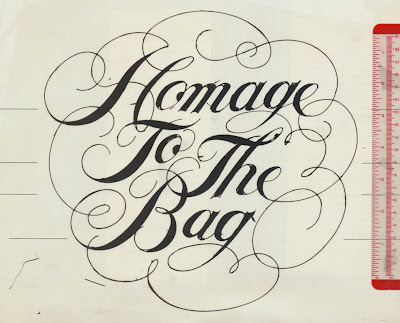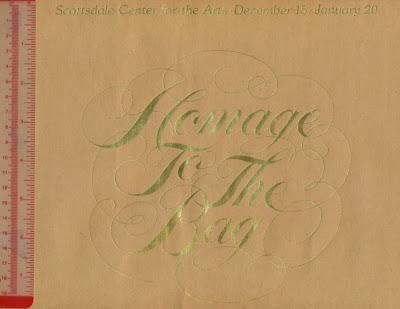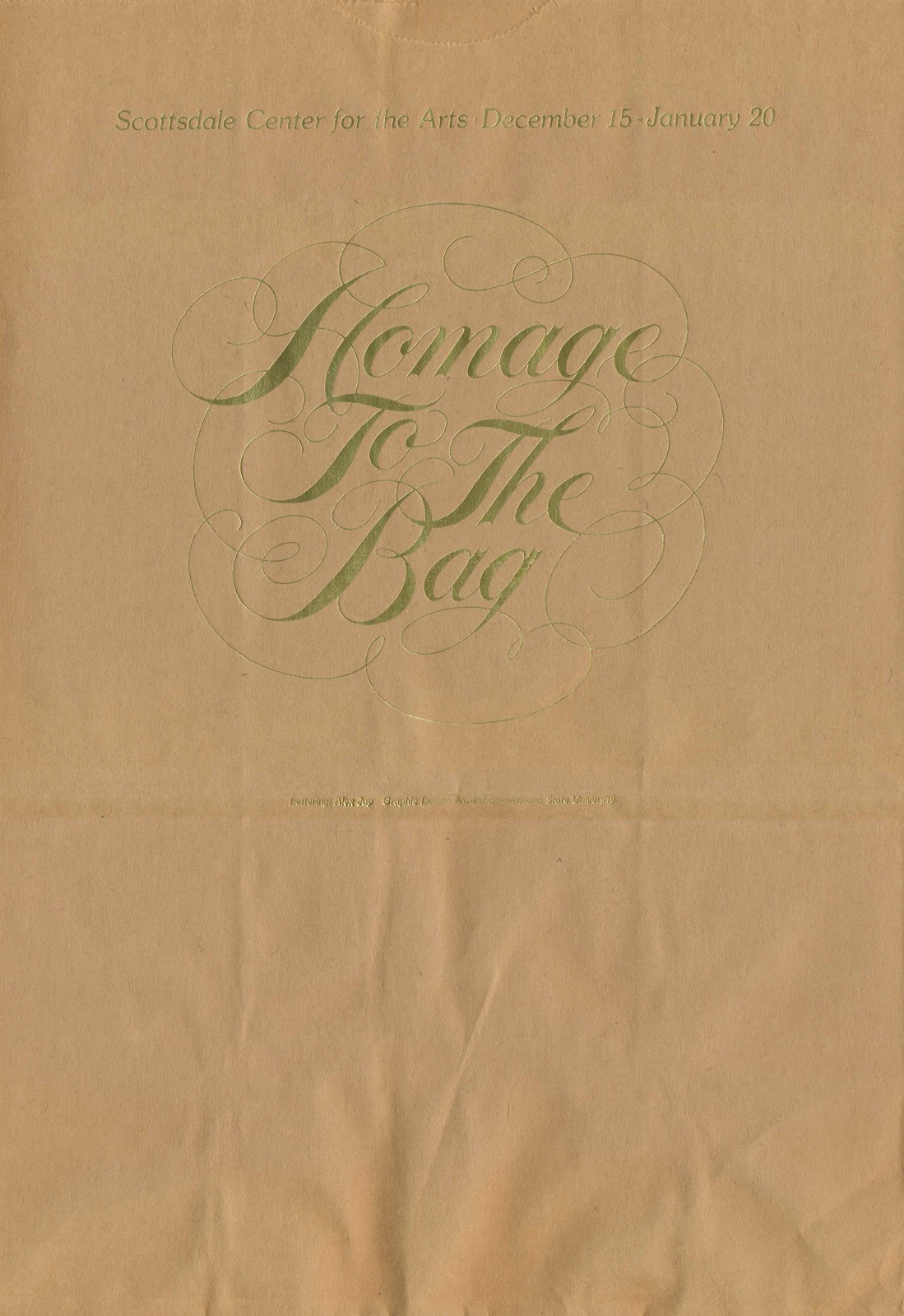
Calligraphy: Homage to the Bag
“Homage to the Bag” was an exhibition at the Museum of Contemporary Crafts in New York City from October 10, 1975 through January 4, 1976. (Below: detail of catalog cover.) The exhibition traveled and a stop was scheduled in Arizona at the Scottsdale Center for the Arts.
The Center contacted the Graphic Design Workshop for a poster design. Tom Hall assigned the project to me. After a number of sketches and discussions, Hall suggested Spencerian script on a paper bag. Below is a detail of the comp lettering on a paper bag which was shown to the Center for approval.
With the Center’s approval of the poster concept, I proceeded to refine the lettering. Below is a photostat enlargement of a tight sketch, my first attempt at Spencerian script.
A sheet of vellum was placed over the photostat. A variety of French curves and ellipse templates were used to do the inking. Corrections were made with white gouache. The artwork measures 9.875 by 9.375 inches / 25 by 23.8 centimeters. The image below was scanned twice and stitched together; the alignment is slightly off on the right side of “The”.
The metal plate used to foil stamp the paper bag.
ITC Souvenir was used for the two lines of copy. Below is a detail of the bag with the debossed image in gold foil. The bag measures 12 by 16.75 inches / 30.5 by 42.5 centimeters.
Hall entered several workshop posters in AIGA’s 1978 poster show. His postcard, below, said “Homage to the Bag” poster was the only one accepted.
I designed an invitation with the font ITC Kabel. A comp was made for the printer to follow. Tracing paper was adhered to the bag. The letterpress-printed bag measured 4.625 by 8.5 inches / 11.75 by 21.6 centimeters.
The Poster Show 1978 (cover detail), American Institute of Graphic Arts (AIGA). Jurors: Lidia Ferrara, B. Martin Pedersen, James Miho. Catalog design: B. Martin Pedersen; catalog is 10 inches / 25.4 centimeters square.
School Days: ASU Graphic Design Workshop
The program was featured in the design magazines Communication Arts, May-June 1977, and Print, November/December 1978.
Below are some workshop projects I produced.
Cleo Laine / John Dankworth
Northlight Gallery Calendar
Mailing Panel
Photo exhibition
Hayden’s Ferry, 1976
Homage to the Bag
Courtesy of Frank Lutz
Edwin George Lutz was born in Philadelphia, Pennsylvania on August 26, 1868, according to his 1900 passport application at Ancestry.com, and Who’s Who in American Art (1938). In the 1870 U.S. Federal Census, he was the only child of John and Annie; a family tree at Ancestry.com said his parents were John Martin and Anna Ernestine Bachman. They lived in Philadelphia where his father was a bookkeeper. Lutz was followed by three siblings: William Florence (1872–1945), Flora (1874–?) and Earnest Martin (1877–1928). At a young age, the children lost their parents; the father passed away October 4, 1878 and, less than a year later, the mother on September 12, 1879. Sometime in 1879, Lutz was enrolled in Nazareth Hall, in Nazareth, Pennsylvania. He was recorded in the book Nazareth Hall: An Historical Sketch and Roster of Principals, Teachers, and Pupils (1910).
The 1880 census recorded the siblings separation. In Philadelphia, William was a ward of the Bachmann household, while Flora and Earnest stayed with their uncle, L.P. Kurnstler and his family, which included Johanna Bachman, his mother-in-law. Lutz remained at Nazareth Hall. From 1885 to 1887, he was a student at the Pennsylvania Museum and School of Industrial Art according to the school’s Circular of the Committee on Instruction, for the years 1886–87 and 1887–88. In the following circular, 1888–89 (below), he was listed as a former student currently working as a general designer in Philadelphia.